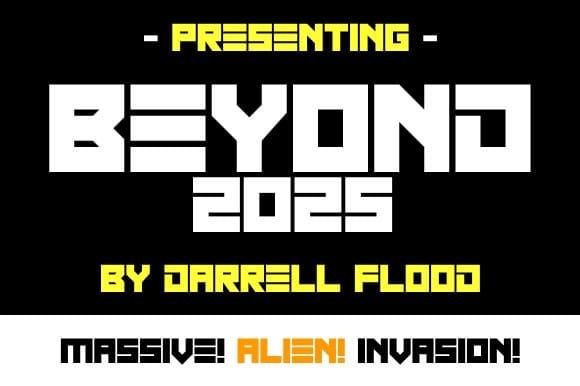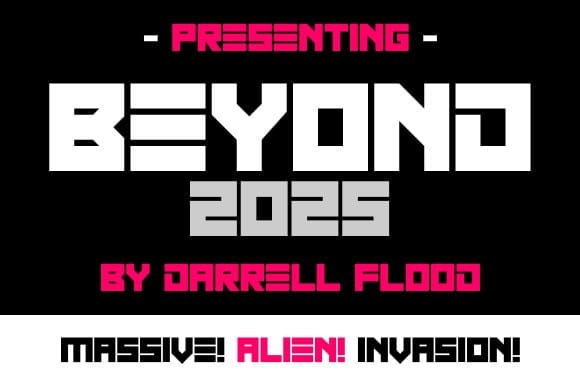
Beyond 2025 Font
Beyond 2025 Font is a bold, high impact sci-fi font in an angular expressive style. Perfect for tech themes, advanced exploration and music gigs!